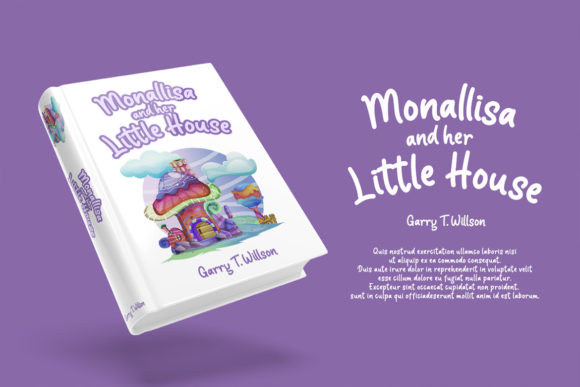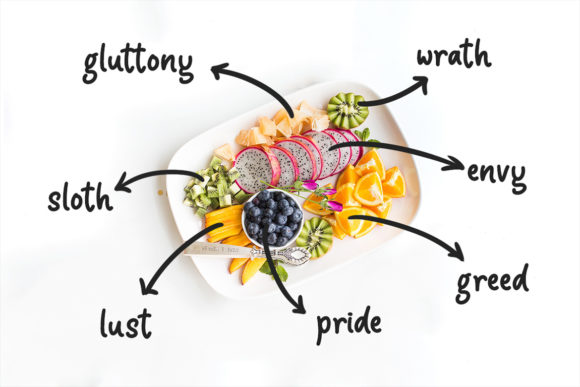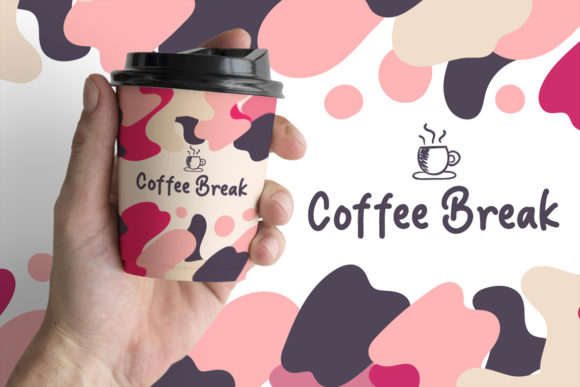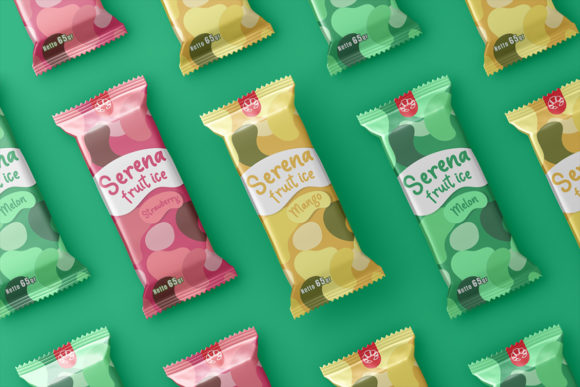
Ellphora Font
About Ellphora Font
Ellphora is a quirky, playful handwritten font. It is perfect for a variety of designs, from kids and school projects to anything you would like to bring to life. Get inspired by Ellphora, and turn any creative idea into a true piece of art!